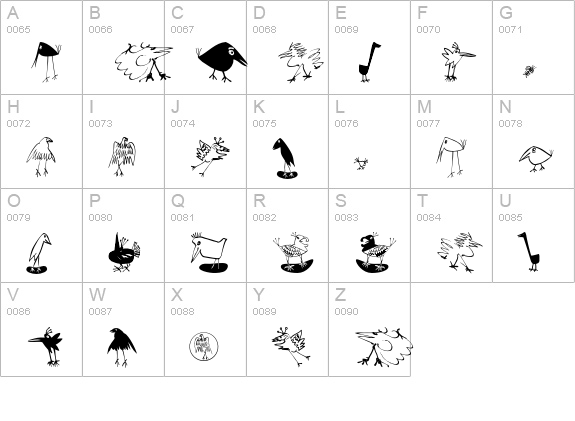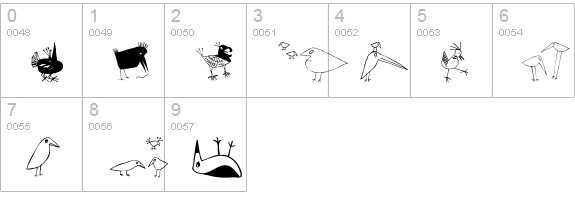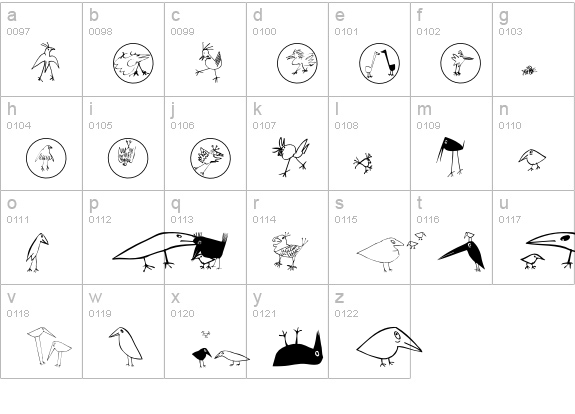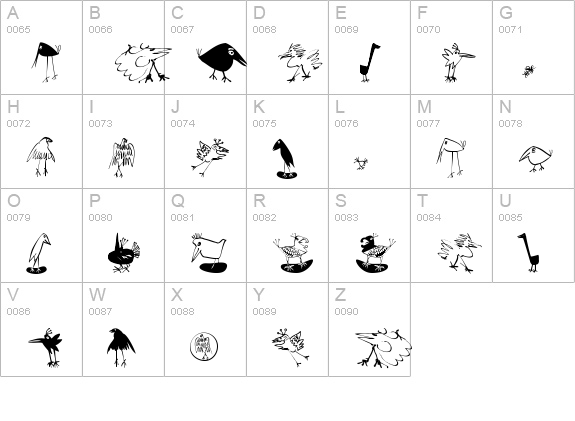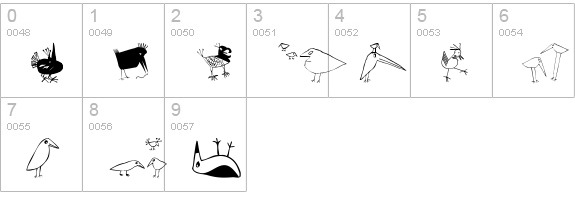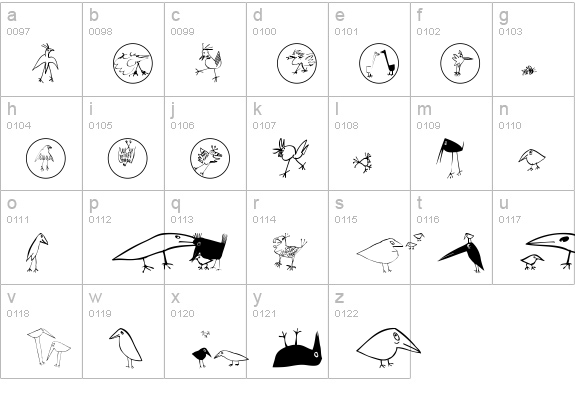
Birds Font Details
Introducing Birds font, a stunning and versatile typeface that captures the essence of freedom and elegance. This unique font features delicate curves and graceful lines that mimic the beauty of birds in flight. With its sleek and modern design, Birds font is perfect for a wide range of projects, from branding to editorial design. But the best part? Birds font is completely free to download at FontsMarket.com! So you can bring a touch of sophistication and charm to your designs without breaking the bank. Don't miss out on this amazing opportunity to enhance your creative projects with the Birds font - download it now and let your creativity take flight!